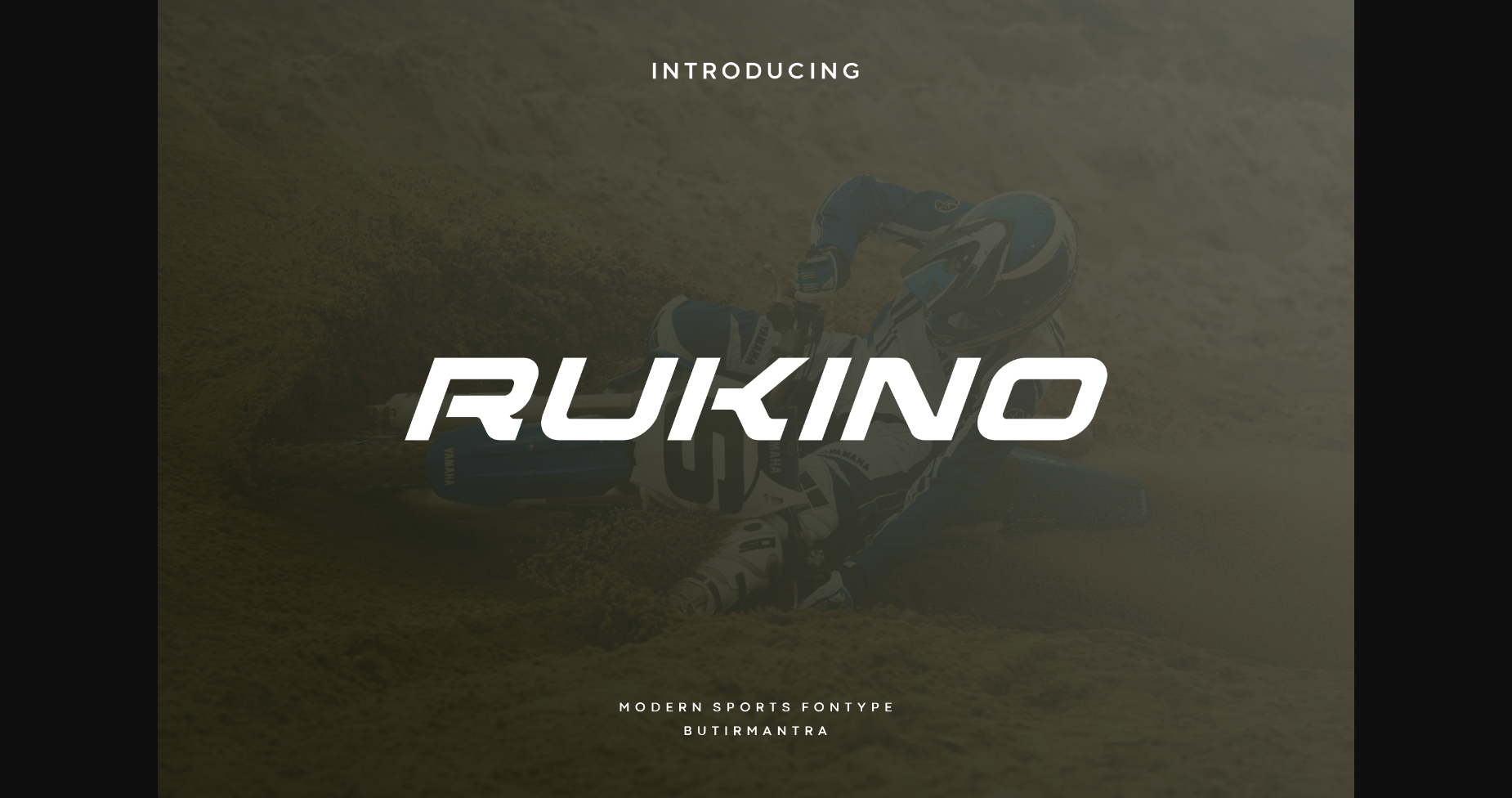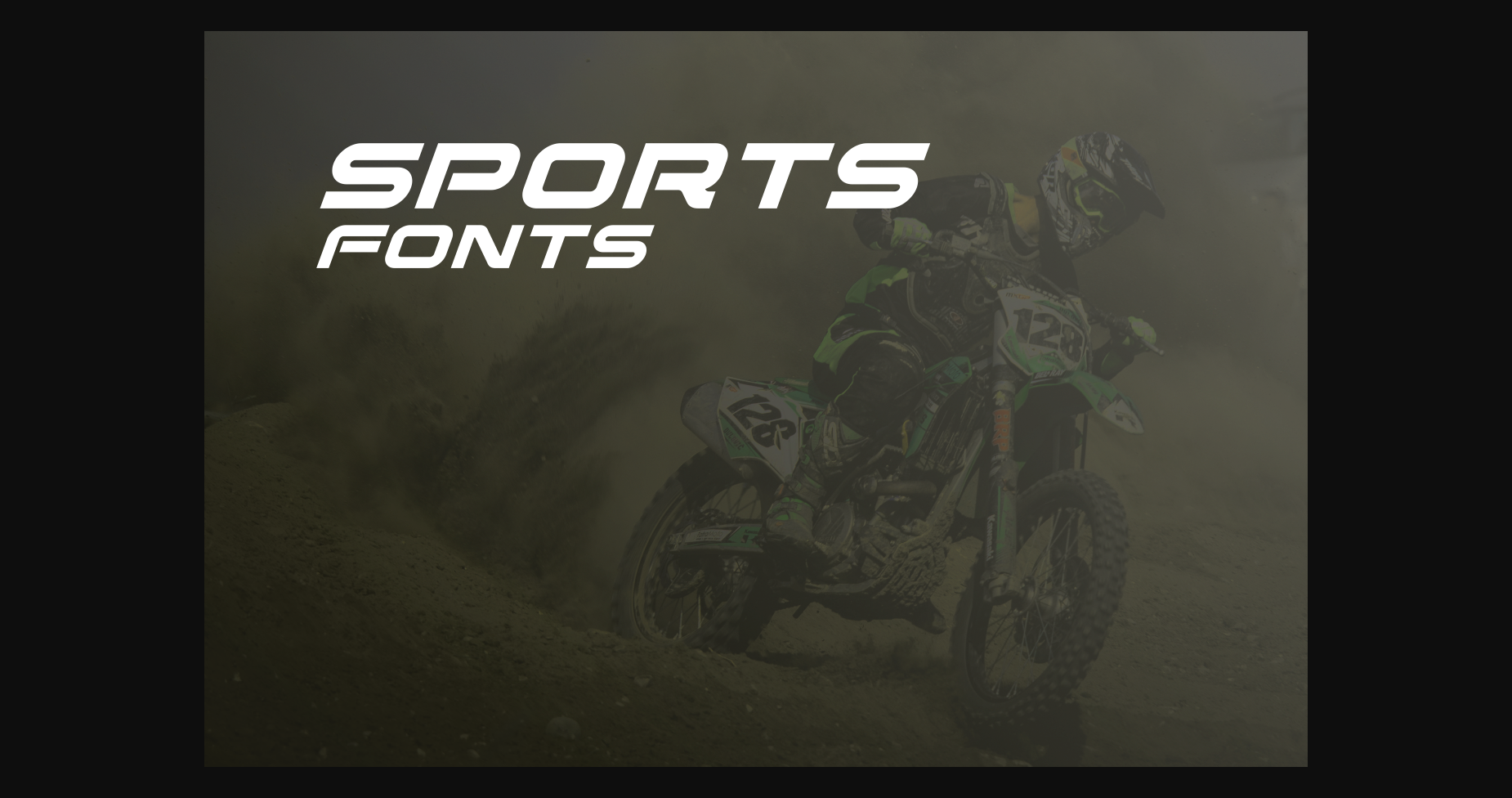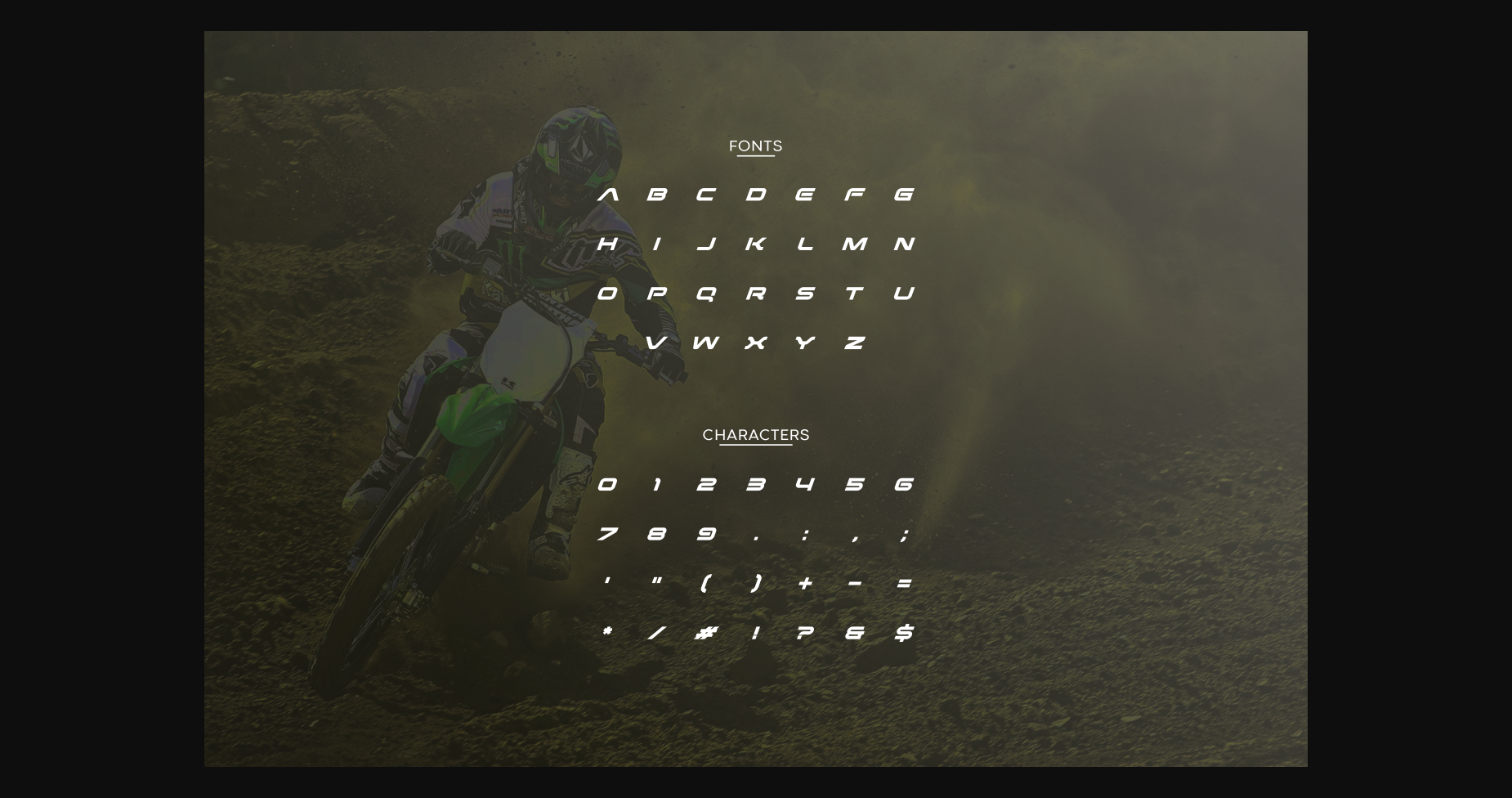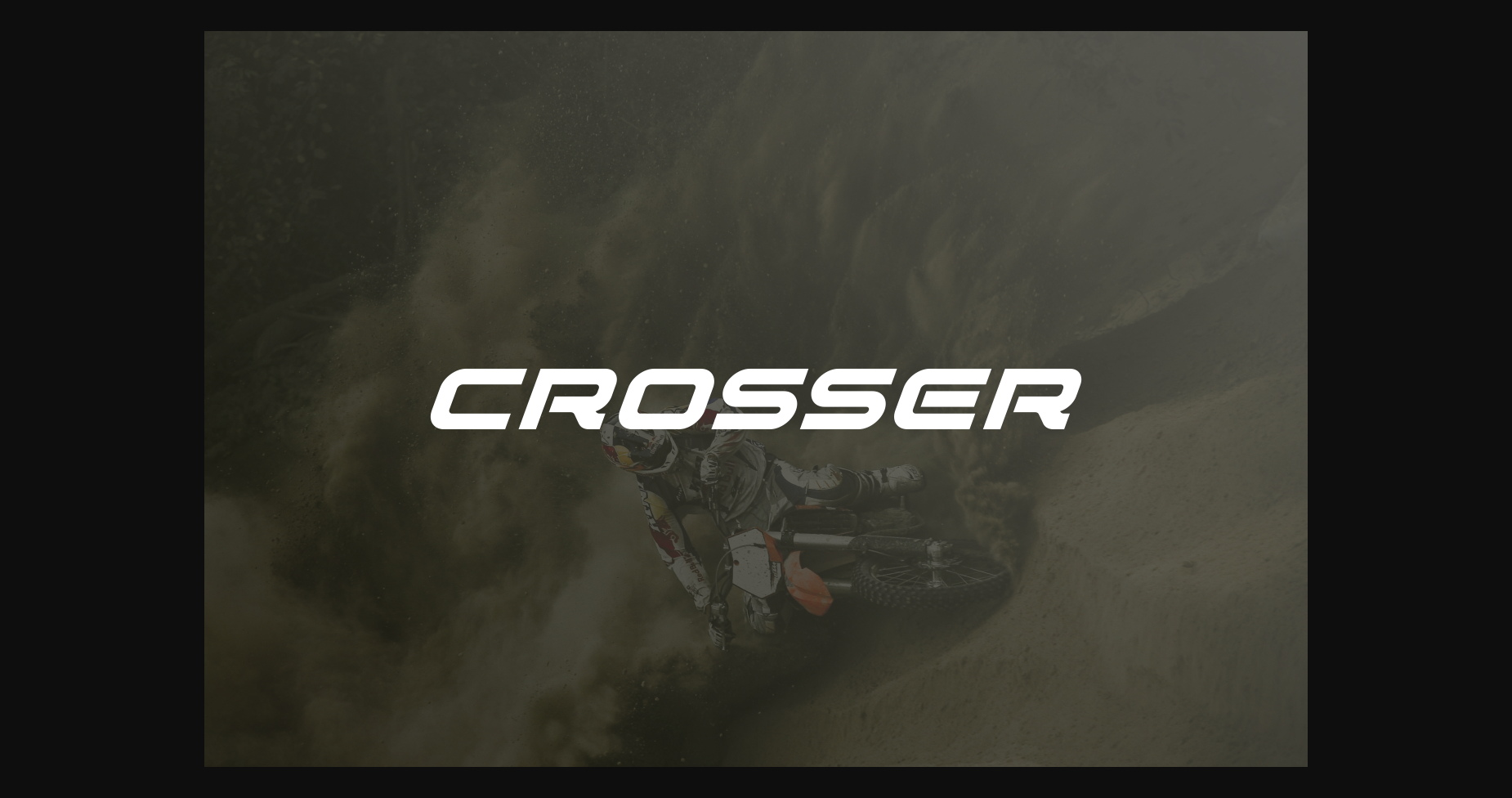
Rukino Font
About Rukino Font
Rukino is a modern, sports-themed sans serif font. This font would be ideal for web design, business cards, or just about anything else that requires a unique touch.